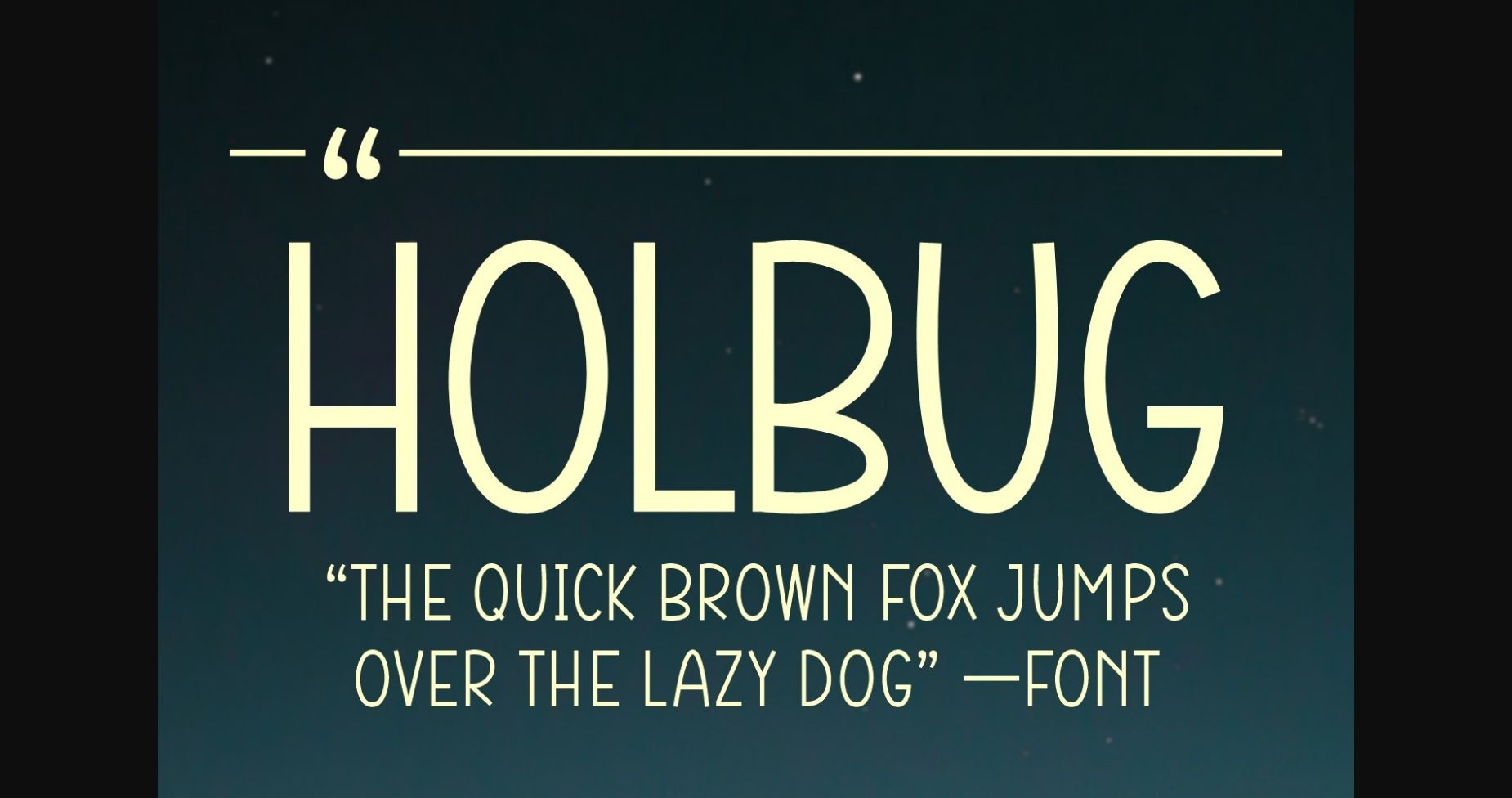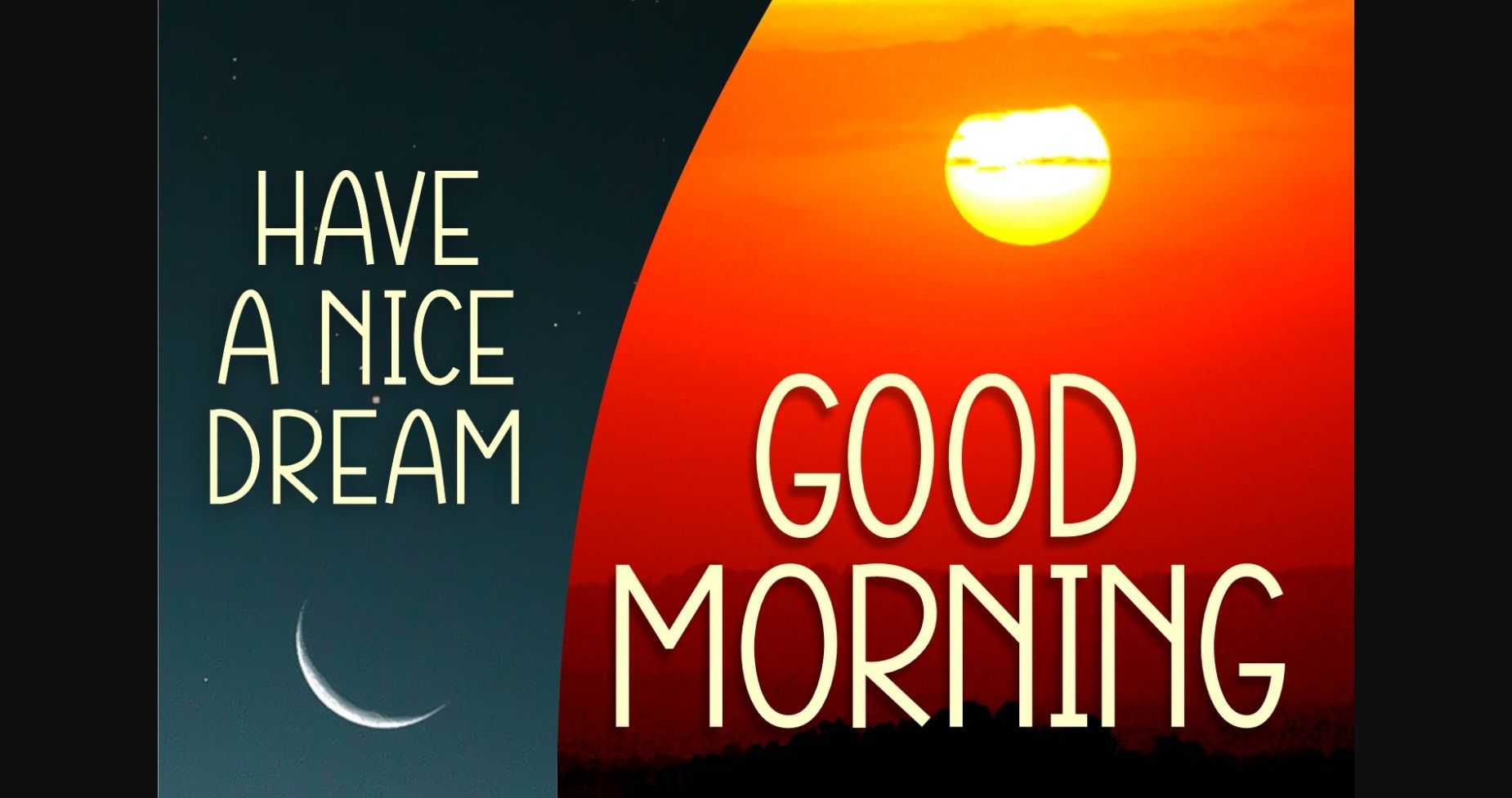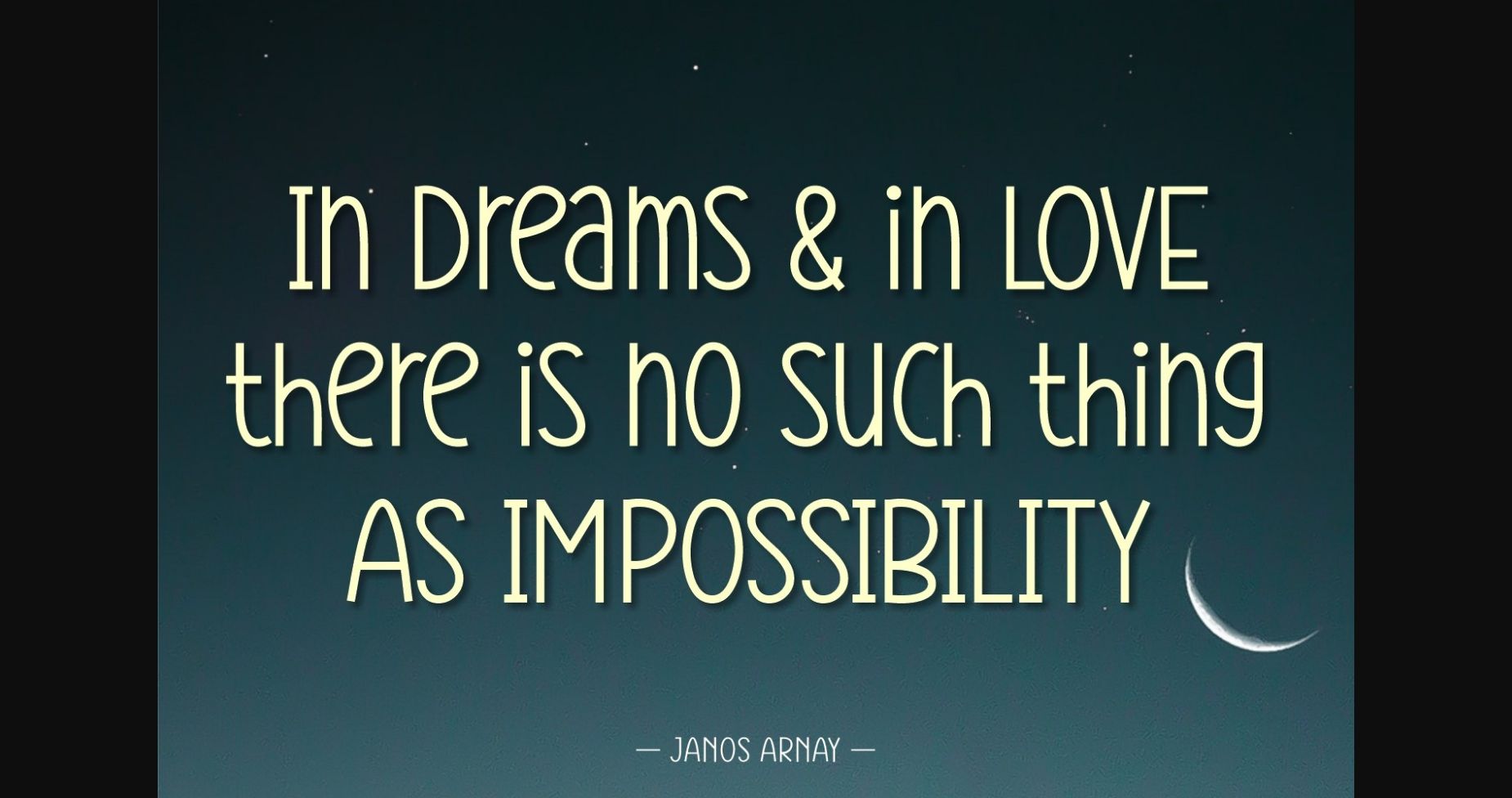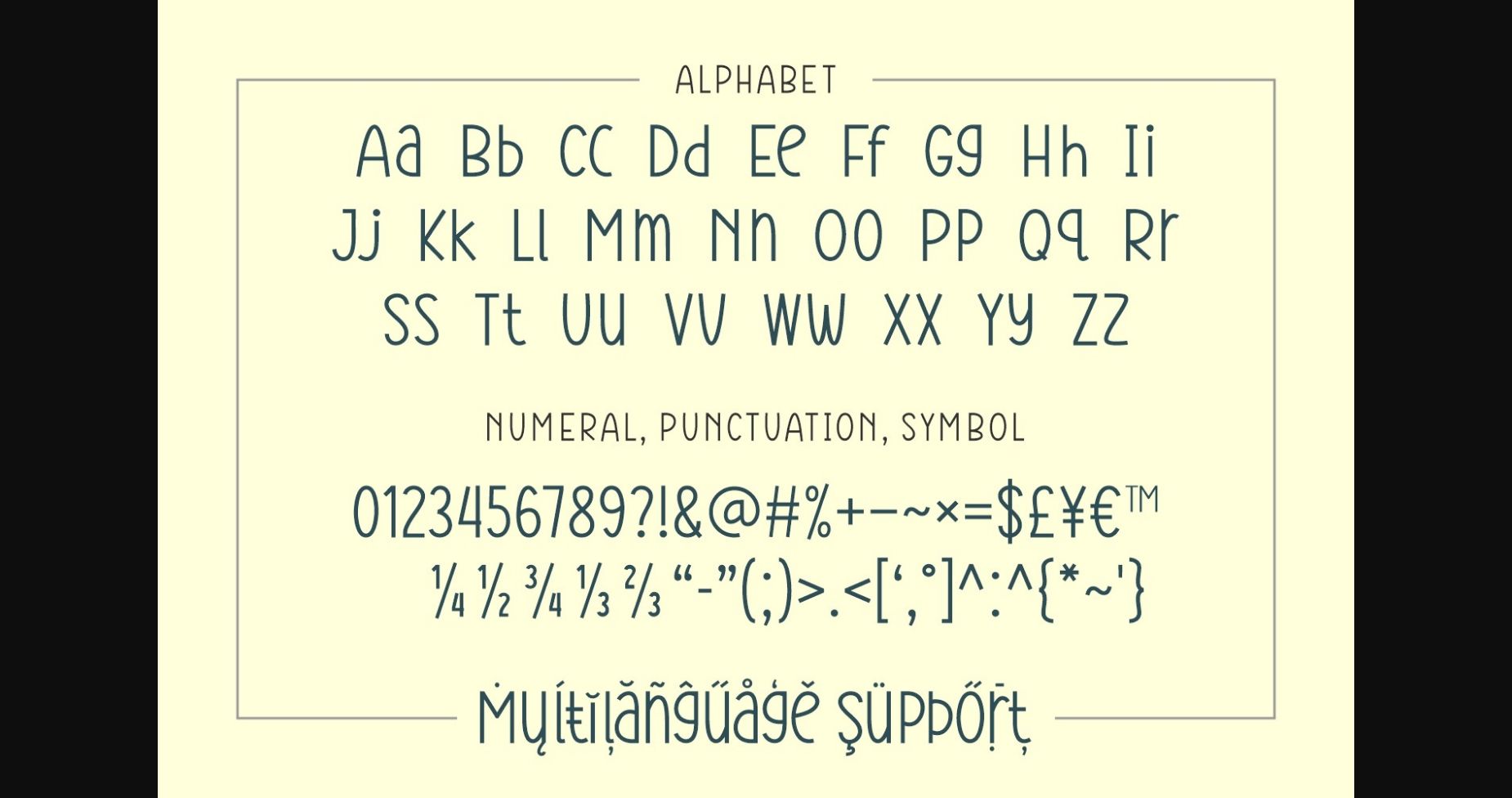
HomeSans Serif FontsHolbug Font Sans Serif Fonts Holbug Font FacebookXPinterestWhatsApp 1 of 6 ... Holbug Font Poster 2... Holbug Font Poster 3... Holbug Font Poster 4... Holbug Font Poster 5... Holbug Font Poster 6... About Holbug Font Holbug is a minimalistic sans serif font. The simple and clean lines make this typeface extremely versatile. From modern prints and digital designs to birthday cards or kid’s crafts – Holbug will certainly be a hit! DOWNLOAD NOW People also explored Flowers Font Party Font Westyler Font Believing Font Hay Bella Font Handstand Font Clarabela Hoodie & Sweater Font Amalisha 272 0 TagsHolbugHolbug Font Previous articleWhisper Secret FontNext articleCicada Font LEAVE A REPLY Cancel reply Comment: Please enter your comment! Name:* Please enter your name here Email:* You have entered an incorrect email address! Please enter your email address here Website: Save my name, email, and website in this browser for the next time I comment. Personal Use Free Lixdu Personal Use Free Read more about this font Cottage Personal Use Free Read more about this font Arnprior Personal Use Free Read more about this font Lollipop Melody Personal Use Free Read more about this font BLOG Fonts That Capture the Spirit of New York City New York City is more than just a place—it’s an experience, a rhythm, a visual language... Elegant Wedding Invitation Fonts – Handwritten & Script Fonts Free vs Paid Fonts: Why Investing in Premium Fonts Is Worth It How to Cut Any Font on Cricut: Convert a Font to SVG (Free)